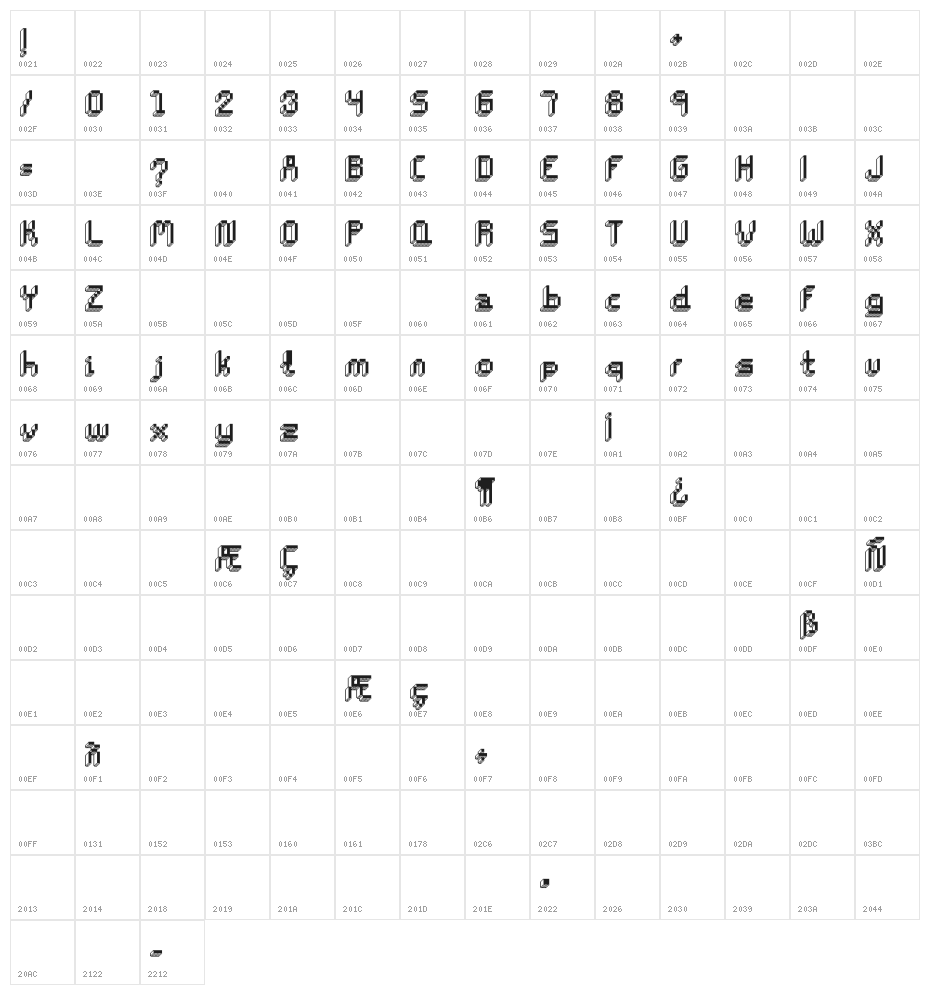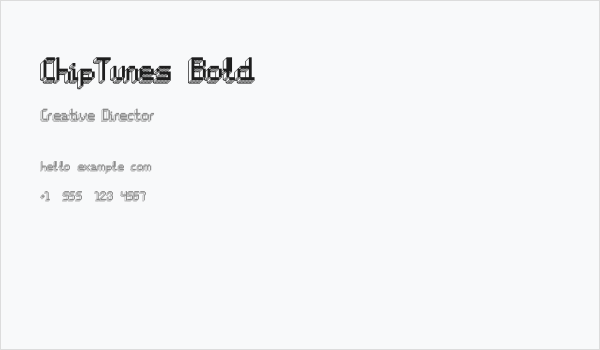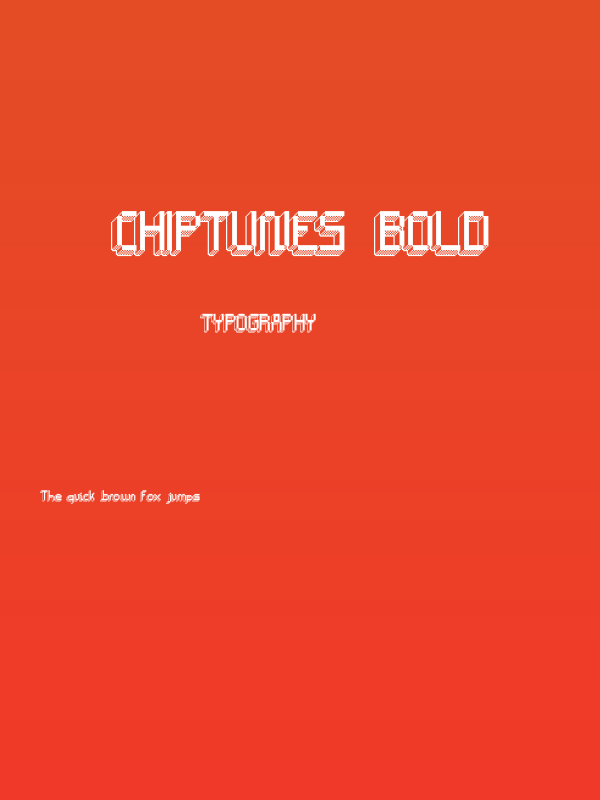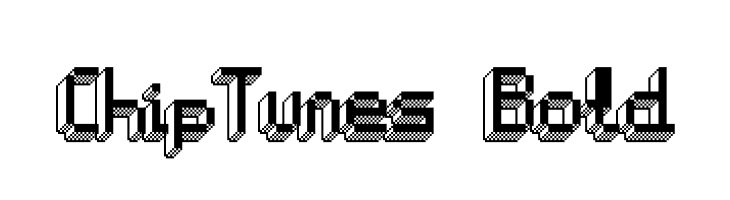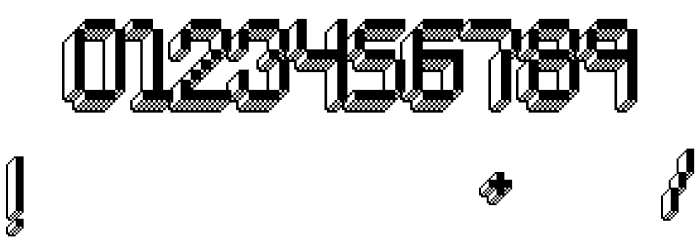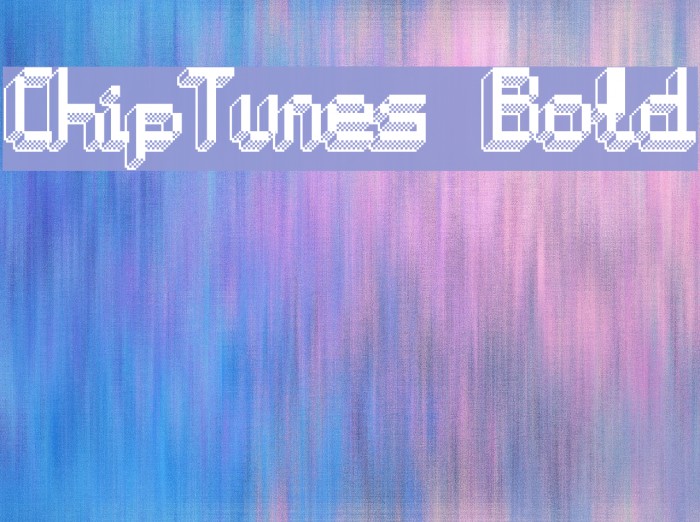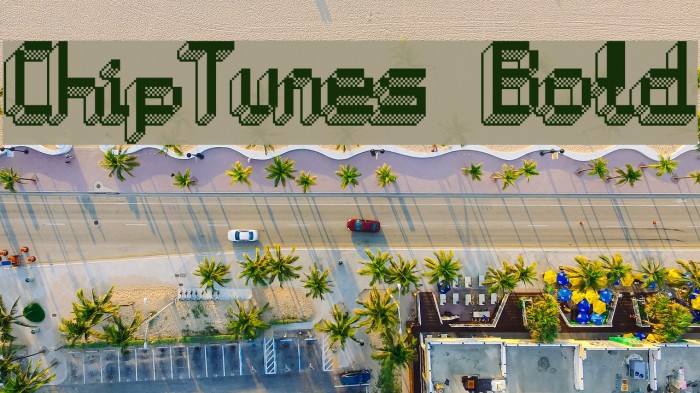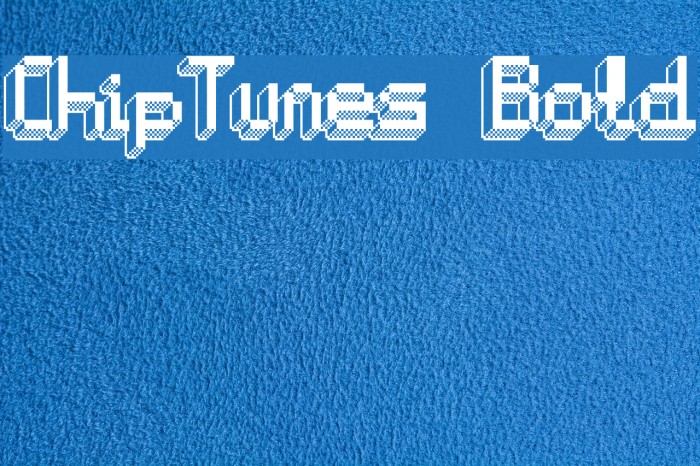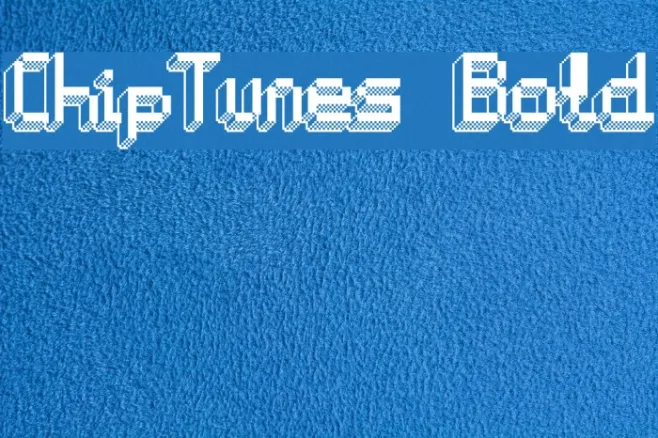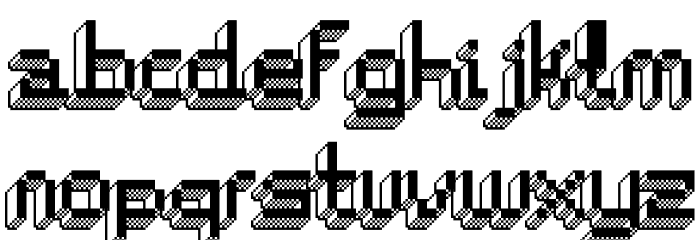
ChipTunes-Bold Font
ChipTunes-Bold Description
This font features a bold, pixelated style reminiscent of retro video game graphics. Each character is constructed with a 3D block effect, giving it a distinct, shadowed appearance. The design incorporates a grid-like pattern within the characters, enhancing its digital aesthetic. The uppercase and lowercase letters maintain a consistent geometric form, while the numerals and special characters follow the same stylistic approach. This font is ideal for projects that aim to evoke nostalgia for early computer graphics or to create a playful, tech-inspired look.
| Proposed Projects | Perfect for video game designs, retro-themed posters, digital art, and tech-related branding. |